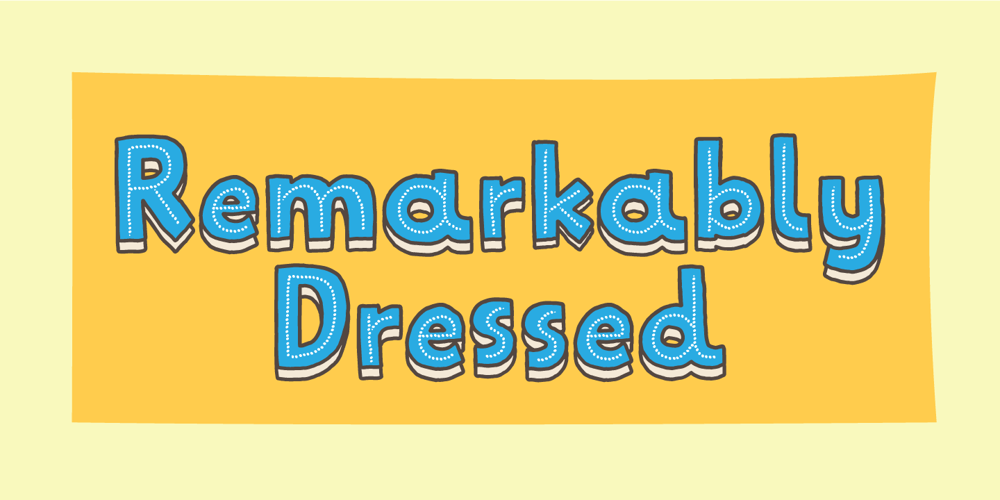
Remarkably Dressed
Remarkably Dressed font
Remarkably Dressed Font Family was designed by Jakob Fischer and published by Bogstav. Remarkably Dressed contains 10 styles and family package options. A handmade layered font that wants to be a part of your next creative project!